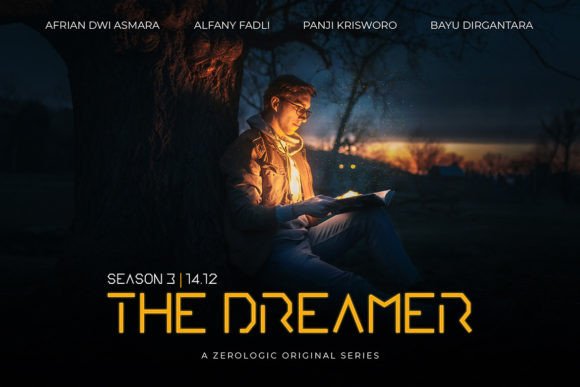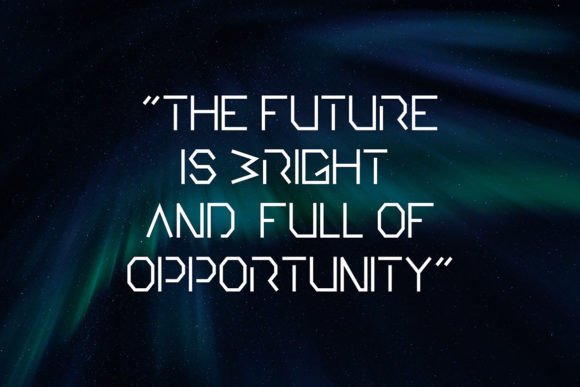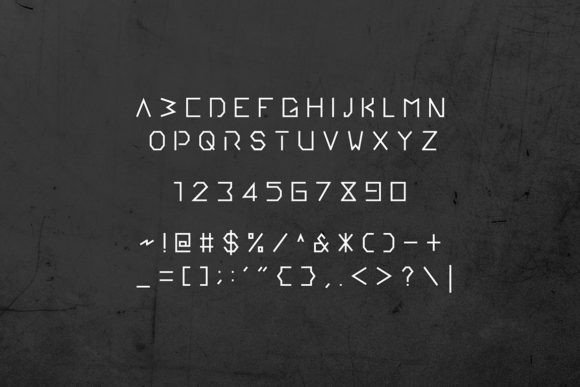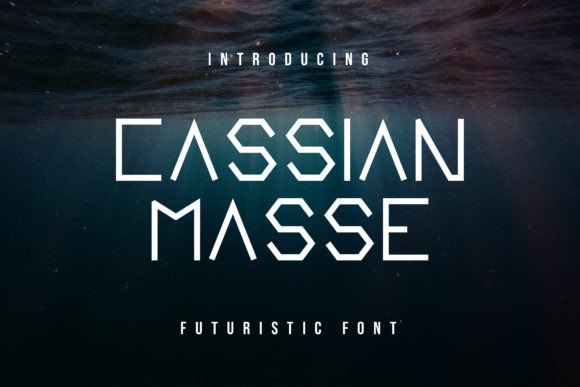
The Ultimate Guide to Cassian Masse Font: A Futuristic Design Essential
I’ll never forget the time I was working on a futuristic sci-fi project, and I just couldn’t find the right font to bring my vision to life. My client wanted something that screamed “space-age,” but still maintained a level of sophistication. That’s when I stumbled upon the Cassian Masse font, and let me tell you, it was a game-changer! 🚀
A Personal Review of Cassian Masse Font
So, what makes Cassian Masse font so special? Here’s my honest review:
- ✨ **Unique and original design**: Cassian Masse font has a distinct futuristic feel that sets it apart from other fonts.
- ✅ **Highly versatile**: This font is perfect for titles, typography, posters, magazines, brochures, packaging, websites, and more.
- 💻 **Excellent for digital use**: The font is optimized for screen use, making it ideal for websites, social media, and digital marketing materials.
- 🎨 **Great for creative freedom**: With its wide range of OpenType features and glyphs, Cassian Masse font gives you the creative freedom to experiment with different styles and effects.
While Cassian Masse font is an amazing design tool, there are a few things to keep in mind:
Cassian Masse font was designed with inspiration from science fiction and futuristic themes. The designer aimed to create a font that would evoke a sense of otherworldliness and innovation. With its unique and original design, Cassian Masse font is perfect for designers who want to add a touch of futurism to their work.
| What is Cassian Masse font? | Cassian Masse font is a futuristic font designed with original touch for creative projects. |